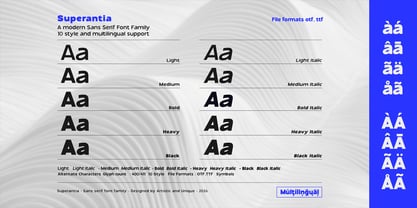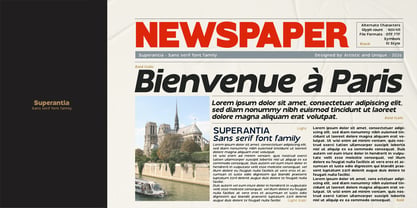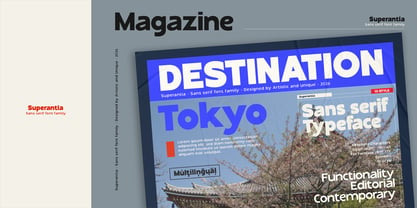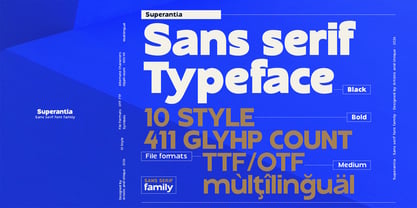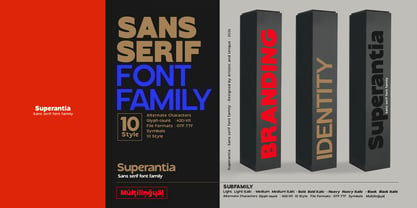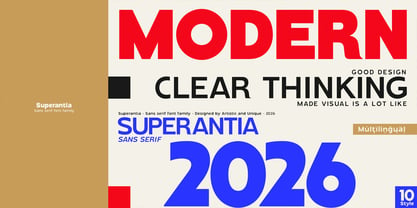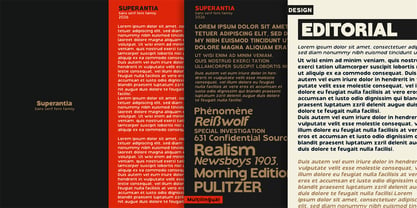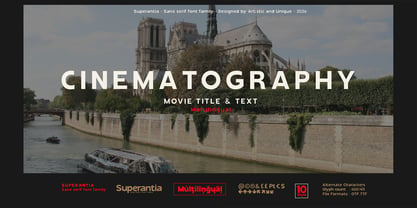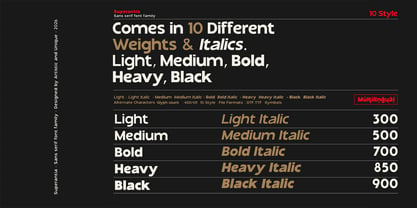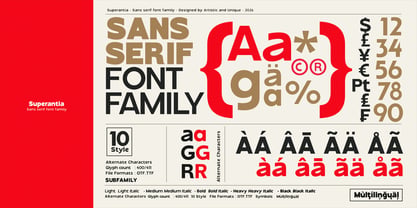
Superantia
by Artisticandunique
The Superantia Font Family was designed by Osman Taner Kucukgenc and published by Artisticandunique. Superantia contains 10 styles and family package options. More about this family
Superantia - Sans serif font family - Multilingual support - 10 styles.
Superantia is a sans serif font family with 10 styles and multilingual support. It offers consistent readability across a wide range of creative work, along with stylistic character and understated elegance. Its clean look and modern structure make it suitable for logo design and branding where clarity and tone matter.
Lighter tones provide an elegant visual presence, while darker tones stand firm with consistent emphasis in headlines. Superantia integrates seamlessly into both digital and print projects, offering a timeless and innovative look for designers who want a refined, reliable family in their toolsets.
Features:
* Multilingual support,
* 10 different styles,
* Style alternatives,
* Rich character options (411),
* Perfect for branding and publication design,
* Suitable for web and logo design,
* Alternative characters and additional symbols.
Whether you're working on editorial layouts, books, magazines, newspapers, packaging, film titles and content, brand identity, websites, or logo design, Superantia offers a harmonious aesthetic blend for modern needs.
Designers: Osman Taner Kucukgenc
Foundry: Artisticandunique
Technologies can change and evolve. However, no matter how much the production environments change, good typography created with the principles of creative and correct use of fonts will not change. Osman Taner Küçükgenç is an Istanbul based designer with a background in graphic design and advertising. He created his personal brand, Artistic and Unique, in order to create quality digital content. He spent years designing typography and typefaces, which are an important part of his academic education and therefore his profession. Fonts are an important tool in all visual communication. While designing the typeface to be unique, having a story behind it gives it character. It is intended to design this tool in the best and most functional way for the user.